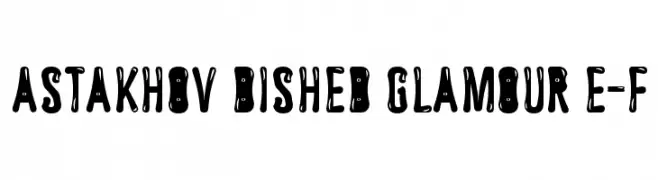
A futuristic, geometric font with a sleek, slanted design.
A playful, dotted font with a digital, pixelated appearance.
A bold, decorative font with snowflake patterns, perfect for festive designs.
A playful font with characters enclosed in eye-shaped ovals, offering a whimsical and decorative style.
A bold, futuristic font with angular, geometric shapes and a dynamic slant.
A bold, italicized font with a playful and dynamic style.
A bold, italicized font with high contrast and a modern, dynamic style.
A sleek, italicized, and expanded font with a futuristic design.
A bold, playful font with rounded, bulbous shapes and a whimsical style.
A bold, italicized font with a dynamic and impactful style.
A modern italic font with a dynamic slant and sleek design.
A bold, angular font with a dynamic and energetic style.
A bold, italicized font with flame-like extensions, exuding energy and motion.
A bold, playful font with a 3D shadow effect, perfect for fun and engaging designs.
A distressed, textured font with a rugged, vintage aesthetic.